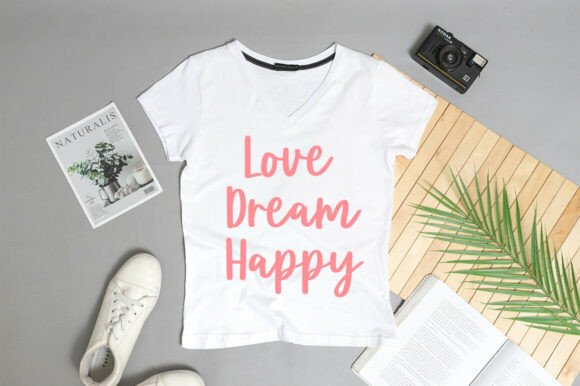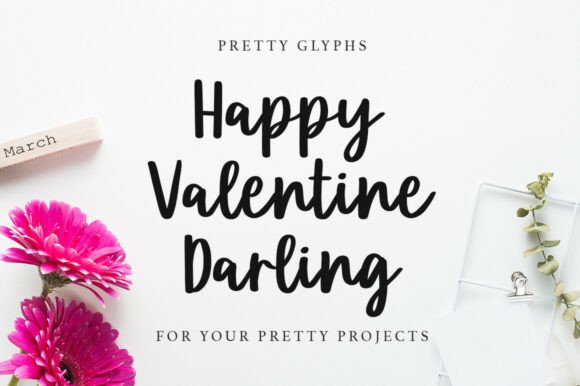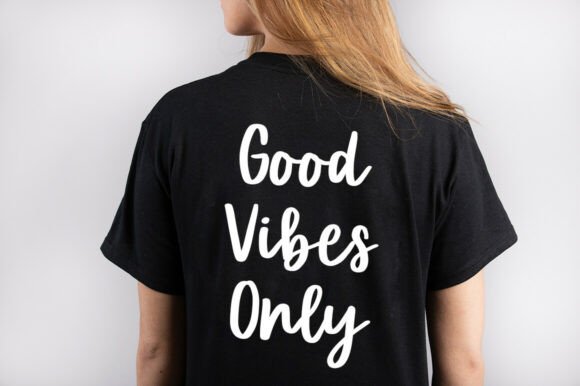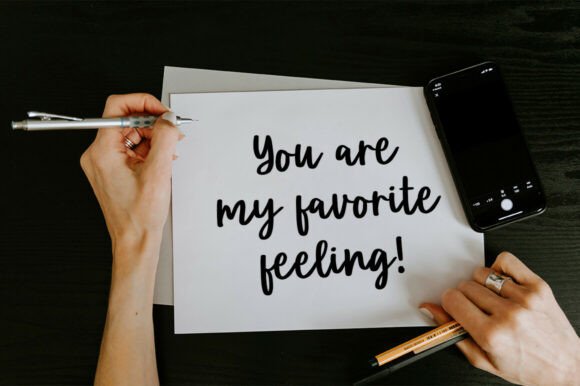
Introduction to Simple Thicks Font
Simple Thicks font is the perfect balance between high-visibility and handmade charm.
This Simple Thicks typeface features heavy, solid strokes with a slightly organic edge, making it much more approachable than a standard bold sans-serif Ideal for rustic branding, coffee shop menus, and farmhouse-style decor, the Simple Thicks font provides a grounded and sturdy feel to any layout.
Key Features of Simple Thicks Font